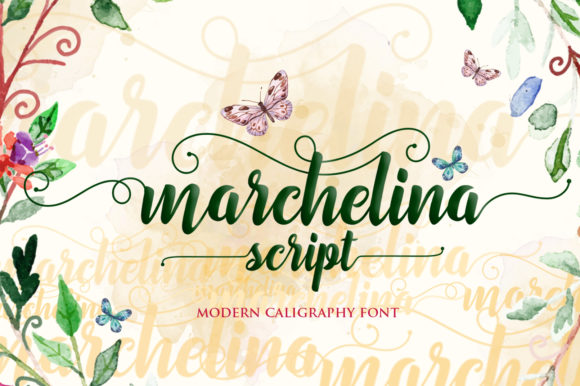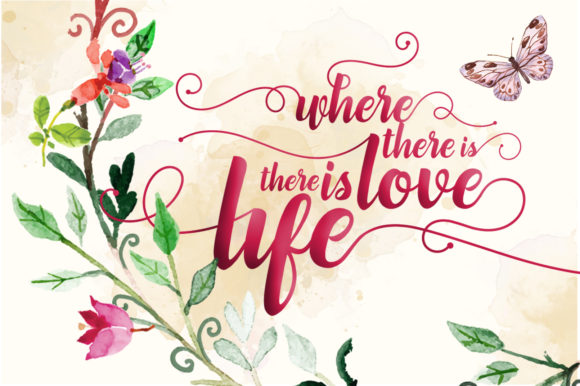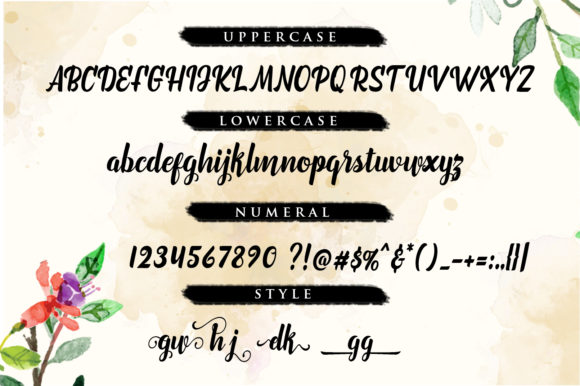
Marchelina Script Font
About Marchelina Script Font
Inspired by nature, Marchelina Script is a beautiful and bold handwritten font with elegant swashes. It will effortlessly turn any design idea into a stand out.